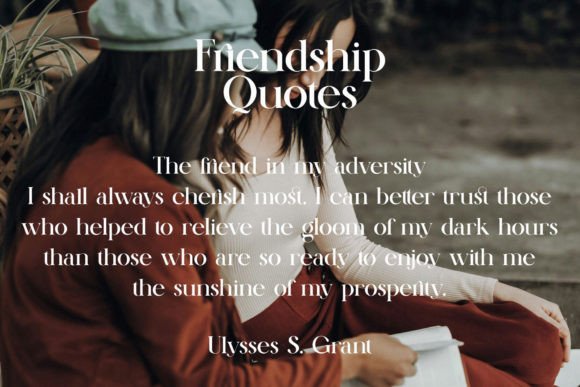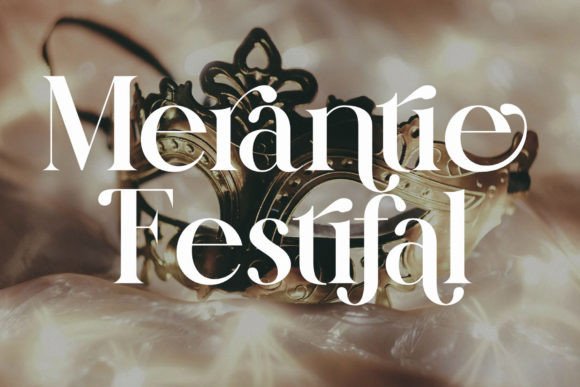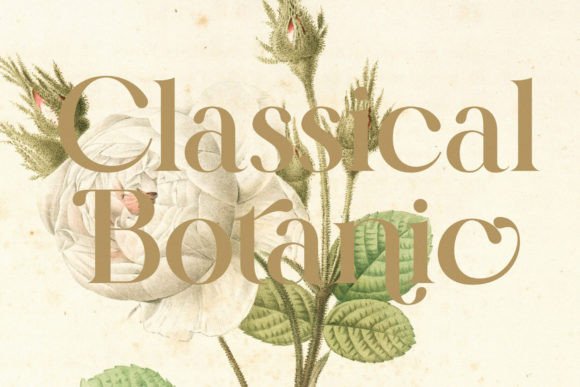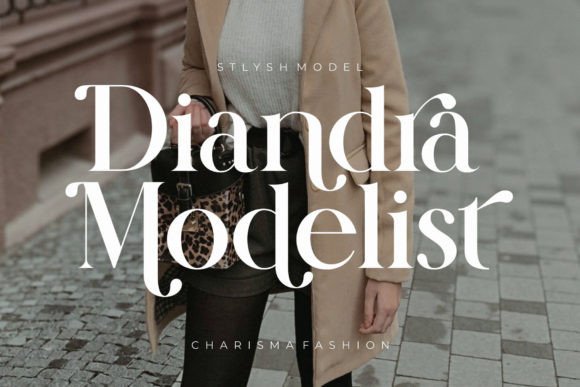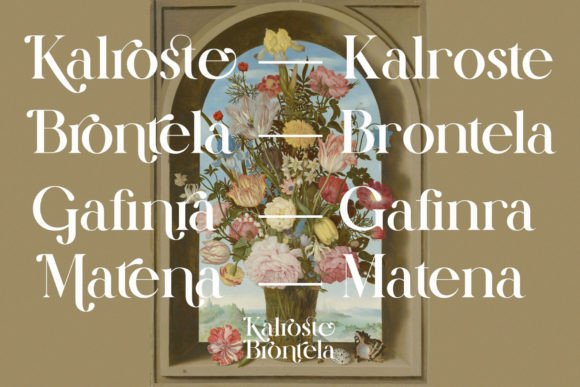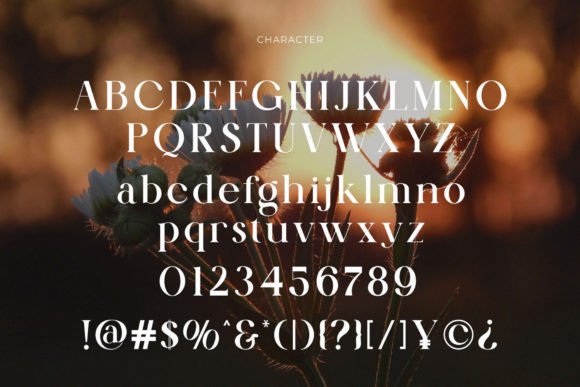
Introduction to Kalroste Brontela Font
**Kalroste Brontela** Modern Display Serif Typeface inspired by the famous minimalist logo perfect for the purposes of designing templates, brochures, videos, advertising branding, logos, invitations, layout design, elegant crafting, beauty design, and others.
**Kalroste Brontela** Modern Display Serif Typeface inspired by the famous minimalist logo perfect for the purposes of designing templates, brochures, videos, advertising branding, logos, invitations,
Key Features of Kalroste Brontela Font